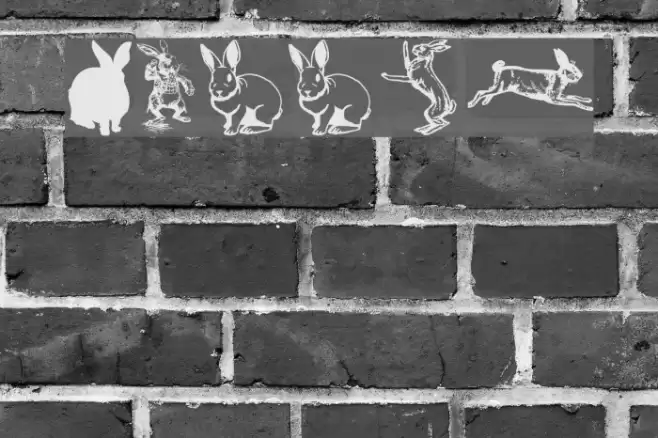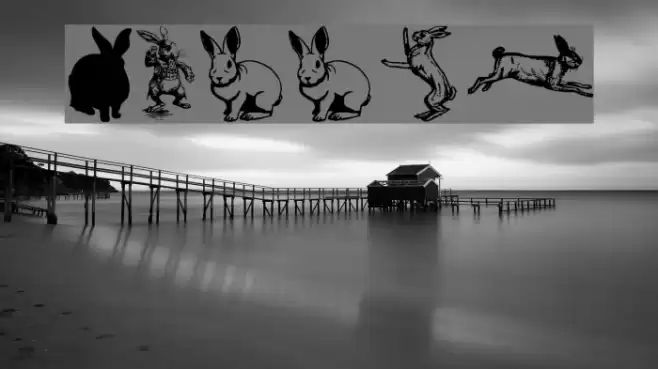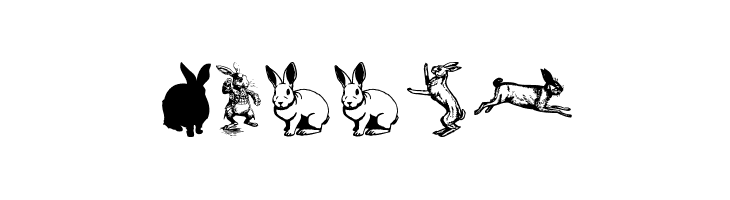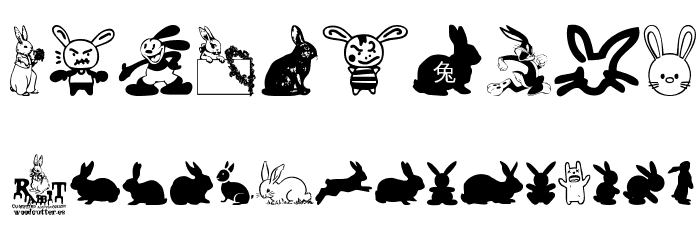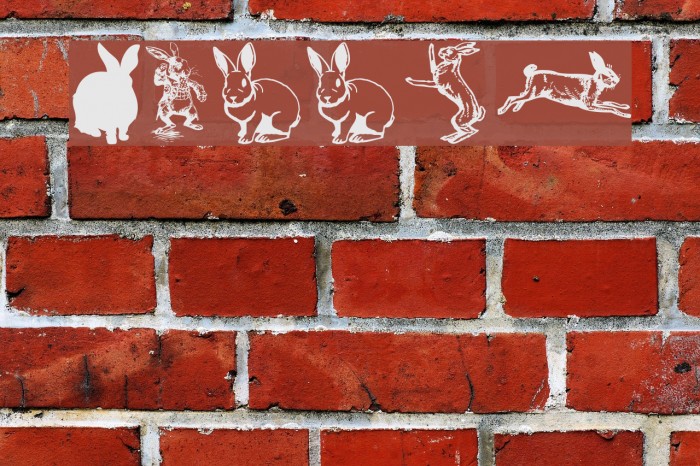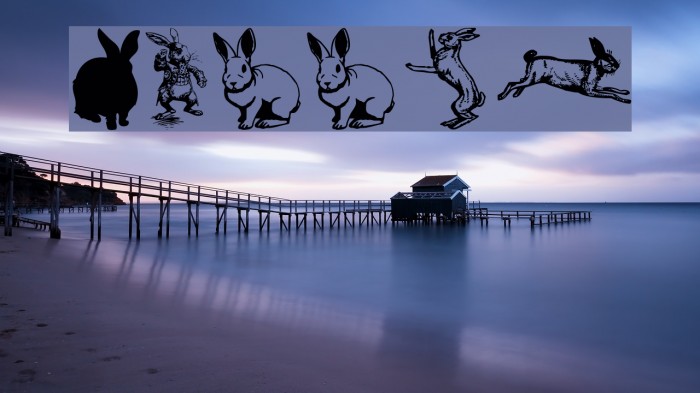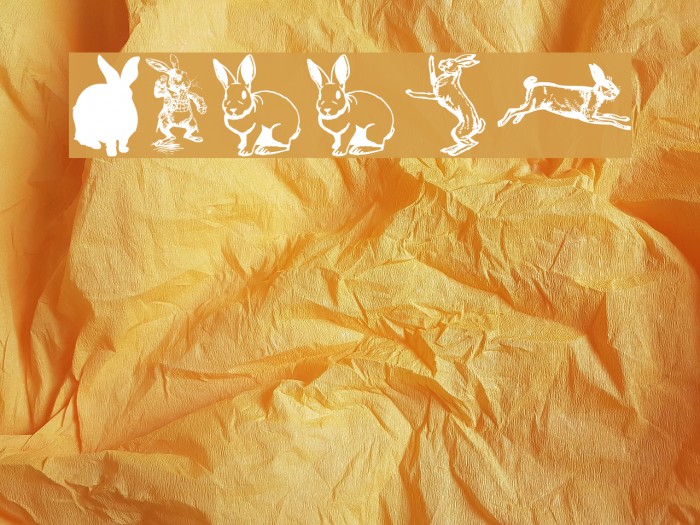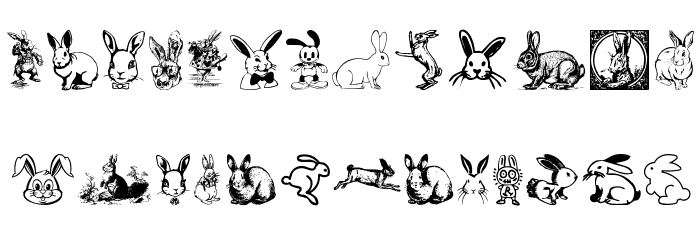
Rabbit Font
Rabbit Description
A playful and varied dingbat font featuring a wide range of rabbit and bunny illustrations, from realistic sketches to cartoonish and abstract silhouettes. The glyphs include both detailed line art and bold, filled shapes, offering diverse visual styles within the same theme.
A decorative dingbat font with assorted rabbit and bunny illustrations from Uncategorized fonts.
- Proposed Projects: Children’s books, Easter cards, animal-themed branding, playful packaging, stickers, educational materials.
- Overall Style: Playful, Whimsical, Decorative
- Use Case: Illustrative accents, icons, themed graphics, decorative elements.